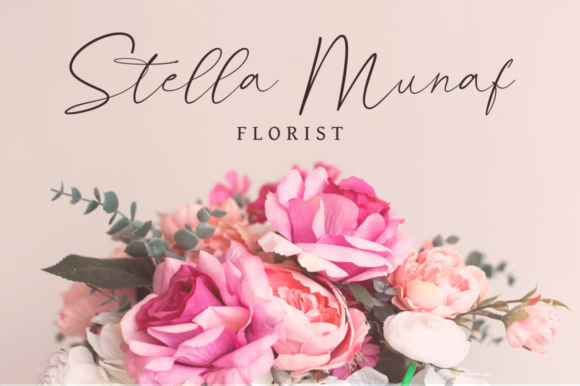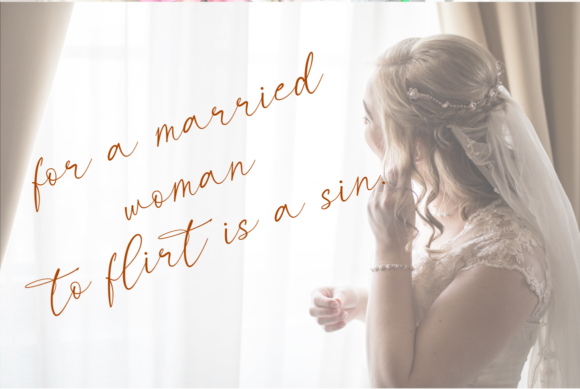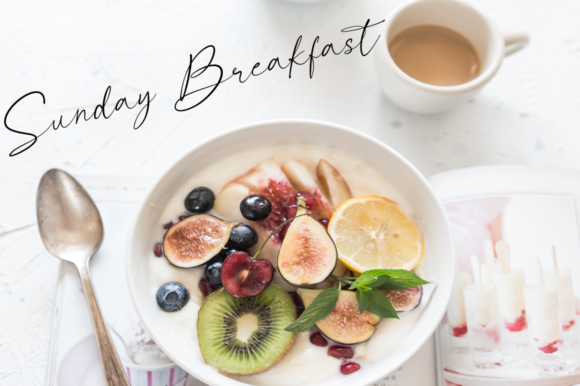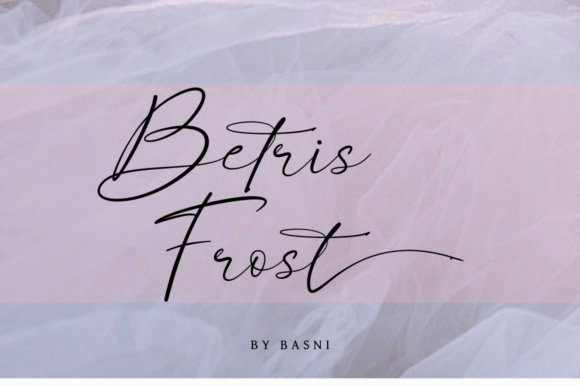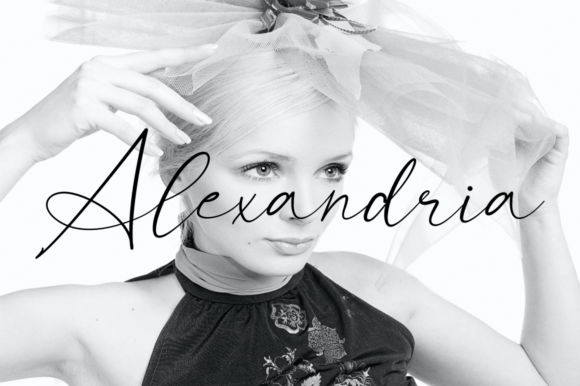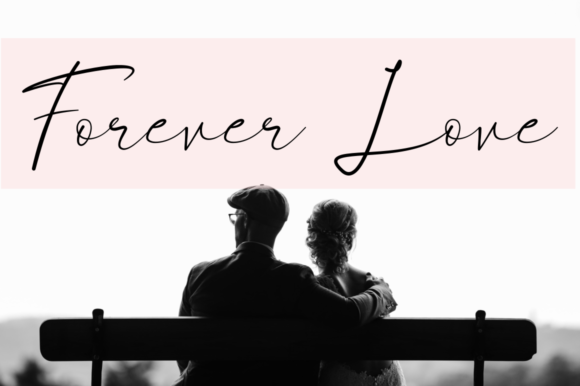
Makintos Font Font – Free Download
Introduction to Makintos Font Font
Fonts play a crucial role in design, and the Makintos Font font is a typeface that brings both character and versatility to any project. Whether you’re working on a branding project, a website, or a print design, the Makintos Font font offers a unique style that can elevate your work.
Makintos is a thin lettered and graceful script font.
Fall for its ravishing style and use it to create gorgeous wedding invitations, beautiful stationary art, eye-catching social media posts, and much more This font is PUA encoded which means you can access all glyphs and swashes with ease.
Key Features of Makintos Font Font
Why Choose Makintos Font Font?
The Makintos Font font is more than just a typeface – it’s a design tool that helps you communicate your message with style and clarity. Its unique character set and versatile design make it suitable for a wide range of applications, from elegant invitations to bold headlines.
With its carefully crafted letterforms and balanced proportions, the Makintos Font font ensures readability and visual appeal across all mediums.
What makes Makintos Font font special?
The Makintos Font font stands out with its unique design, exceptional readability, and versatility across various design applications.